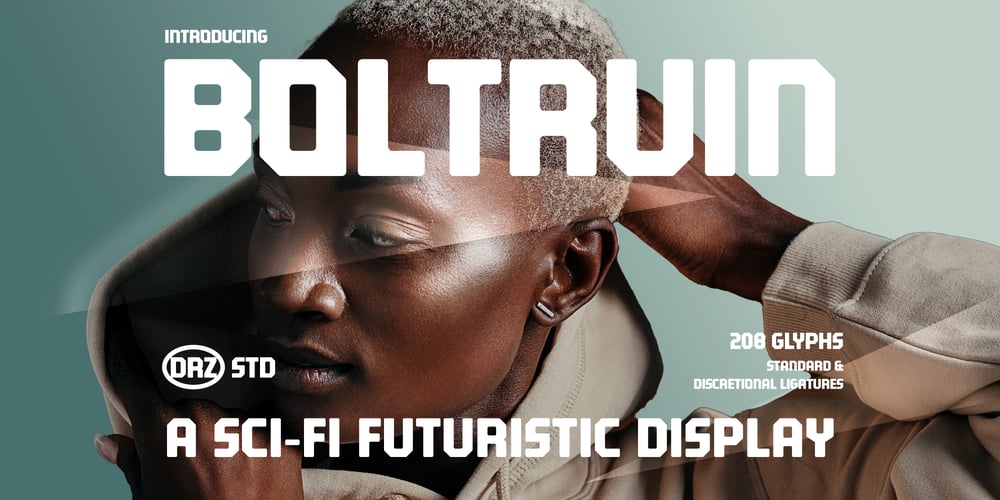
Boltruin Font Family was designed by Panca Ahmadi Hasan and published by Drizy Font. Boltruin contains 1 styles and family package options. Boltruin – SciFi Futuristic Display FontBoltruin is a cutting edge font designed for those who love to push creative boundaries. Part of the Winter Streetwear font collection, Boltruin blends a sleek, futuristic style with bold, impactful letterforms, perfect for designs that need to feel edgy and innovative. It’s sharp angles and unique lines bring a high-tech, scifi vibe to any project, making it ideal for streetwear fashion, tech-focused branding, or futuristic posters. Boltruin doesn’t just add style; it brings an electric energy that makes your designs feel fresh, modern, and unmistakably bold.Boltruin features: Character Set (Uppercase & Lowercase) Punctuation & Numbers Multilingual Standard & Discretional Ligatures Elevate and explore the design possibilities with this Winter Streetwear Design Font!